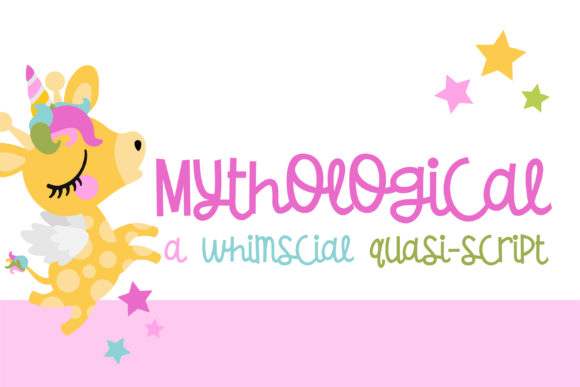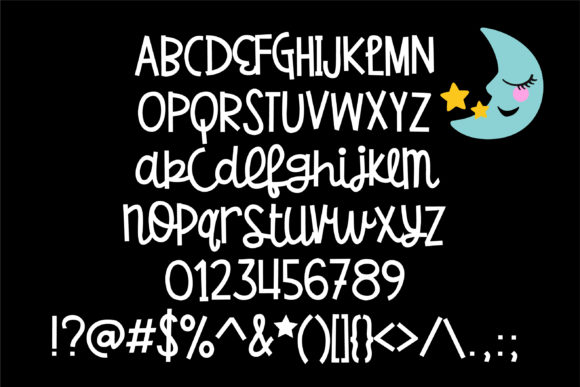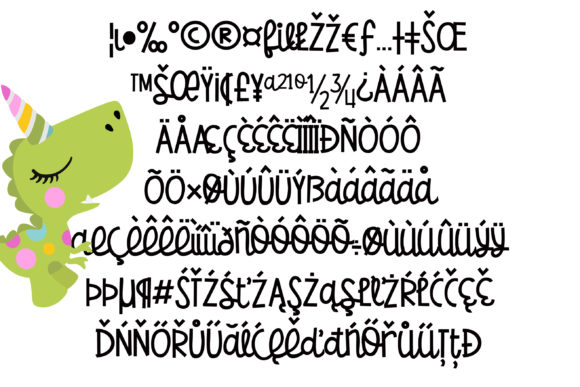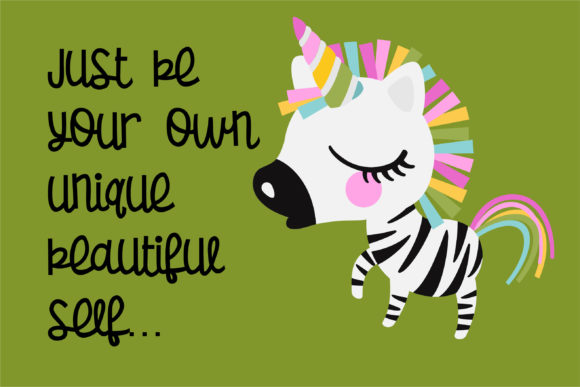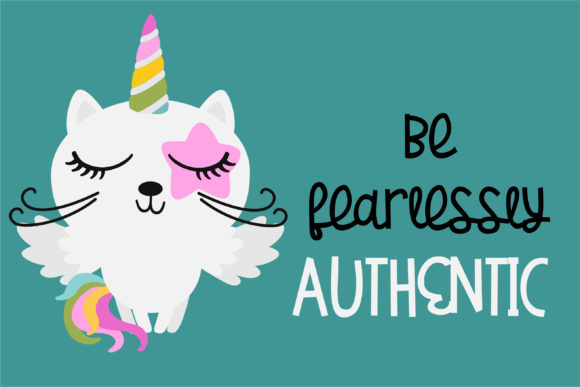
Mythological Font
About Mythological Font
Mythological is a whimsical and beautiful script font with an authentic twist. Use it to add a lovely and adorable charm to any design project!